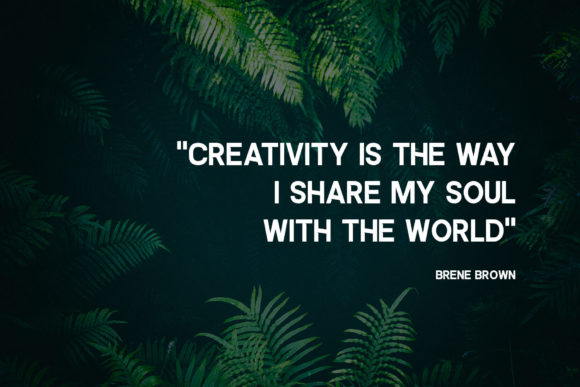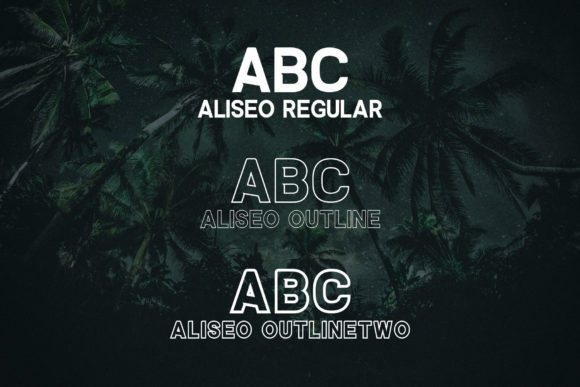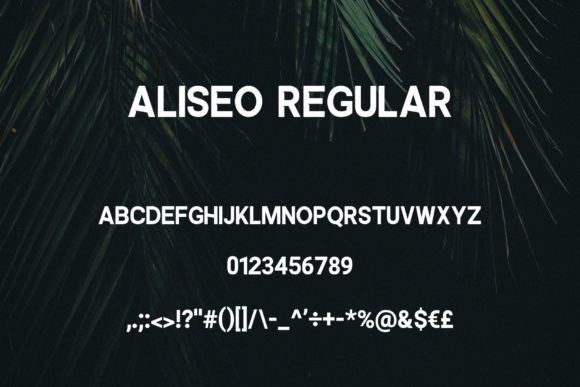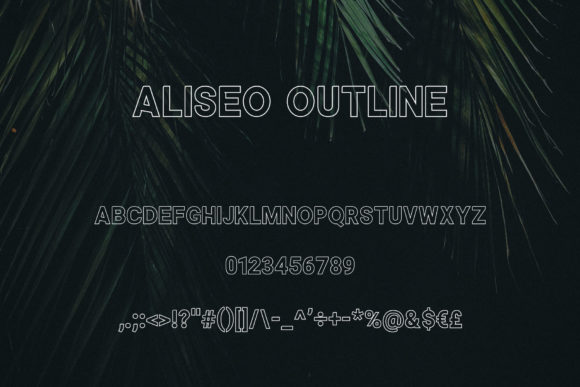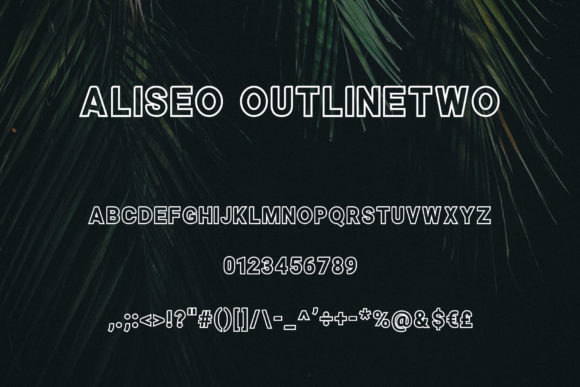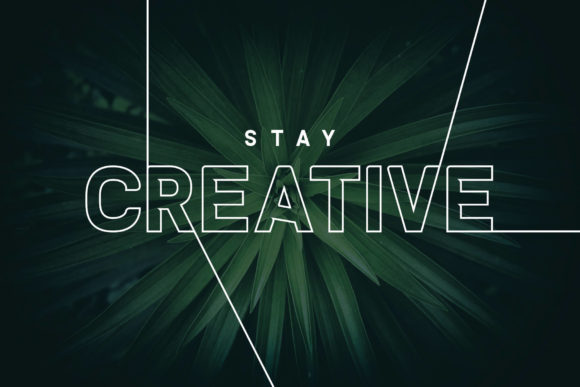
Creating Timeless Branding with Aliseo Font
As a designer, there’s nothing quite like the thrill of bringing a brand to life. The moment you discover the perfect combination of typography, color, and imagery is pure magic. It’s a feeling that never gets old, and it’s what drives us to push the boundaries of creativity every day. But, let’s be real – it’s not always easy to find that perfect font. That’s where Aliseo Font comes in – a strong and clean sans serif font designed to elevate your branding game.
With its classic yet modern aesthetic, Aliseo Font is the ultimate tool for designers looking to create strong, timeless branding. Its versatility makes it perfect for everything from corporate logos to digital interfaces. Whether you’re working on a small startup or a large-scale campaign, Aliseo Font is the perfect addition to your design arsenal. And, with its clean lines and minimalistic design, it’s a valuable asset for any designer looking to create a lasting impression.
Aliseo Font Key Features
- Font Family: Aliseo Font is a modern sans-serif font family.
- Unique Characteristics: Aliseo Font features a clean and minimalist design, with a focus on readability and legibility, making it ideal for body text and headings.
Review of Aliseo Font
Overall, I think Aliseo Font has some great qualities that make it a solid choice for designers, but it also has some limitations that might hold it back. ✨
- Modern and sleek aesthetic that’s perfect for contemporary designs.
- Excellent legibility, making it easy to read even in smaller font sizes.
- Large character set with over 1,000 glyphs, ensuring it’s suitable for a wide range of languages.
- Wide range of weights and styles, allowing for plenty of creative flexibility.
- Some users have reported issues with the font’s kerning, particularly at smaller sizes.
- The font’s design can feel a bit generic, lacking the unique character that some other fonts offer.
Overall, I think Aliseo Font is a solid choice for designers who need a modern, legible font with a wide range of weights and styles. However, its limitations might make it less suitable for designers who require a truly unique or cutting-edge font.
Aliseo Font is ideal for creating elegant and sophisticated designs. Use it for:
- Business cards and corporate branding
- Magazine and book covers
- Web design and UI/UX
Yes, Aliseo Font is specifically designed for digital use and is optimized for screens. It features advanced hinting and kerning to ensure crisp and clear text rendering on a wide range of devices and resolutions.